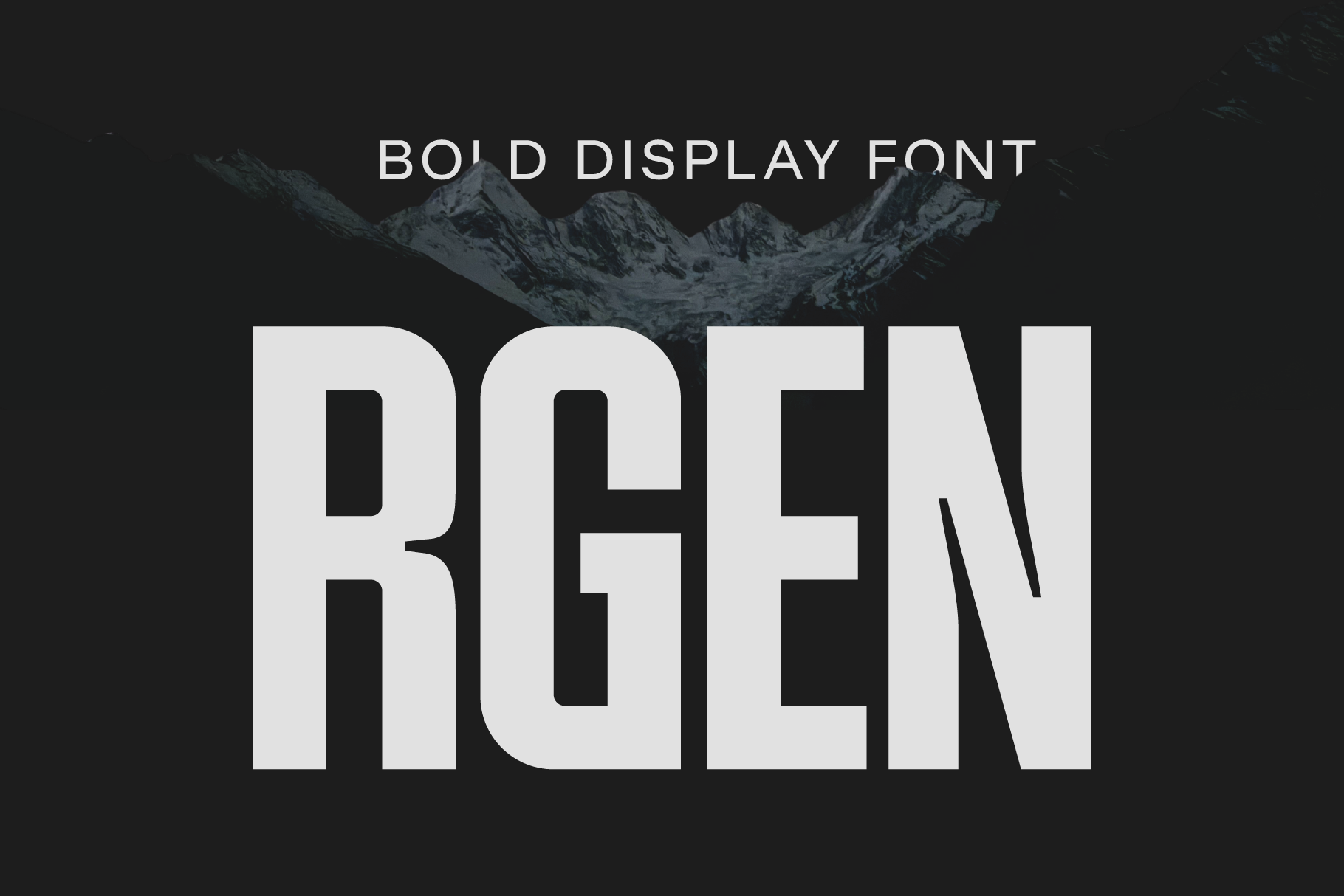
Rgen-Bold Condensed Display Font
RGEN is a bold, condensed display font designed to make an impact in your designs. Features tall structure, powerful strokes, and confident presence, RGEN is built for headlines that need to stand out. Whether you're creating sports graphics, streetwear branding, posters, or digital campaigns, this condensed typeface delivers a strong visual impact that instantly grabs the viewer’s eye. RGEG has a modern and slightly techy look while maintaining excellent readability at large sizes.